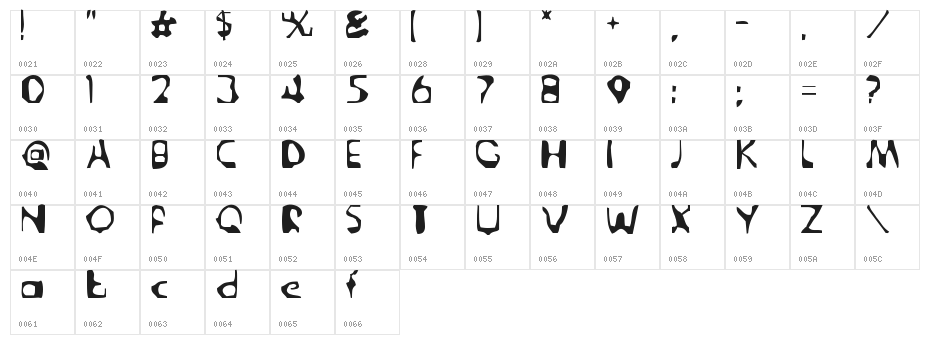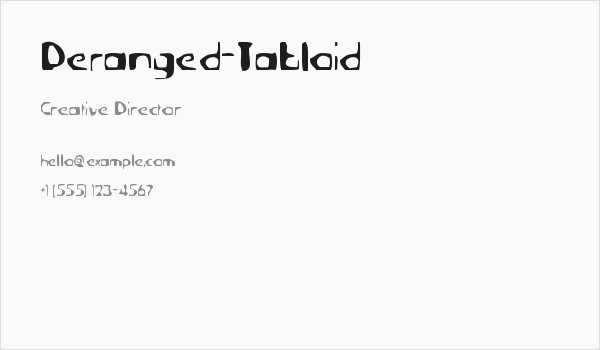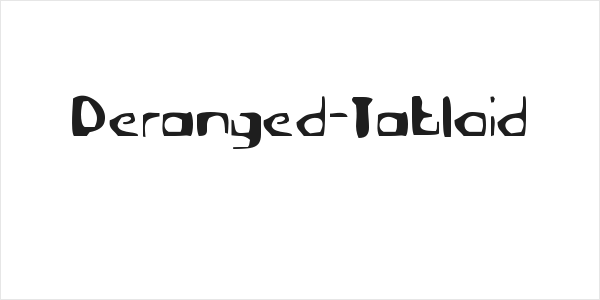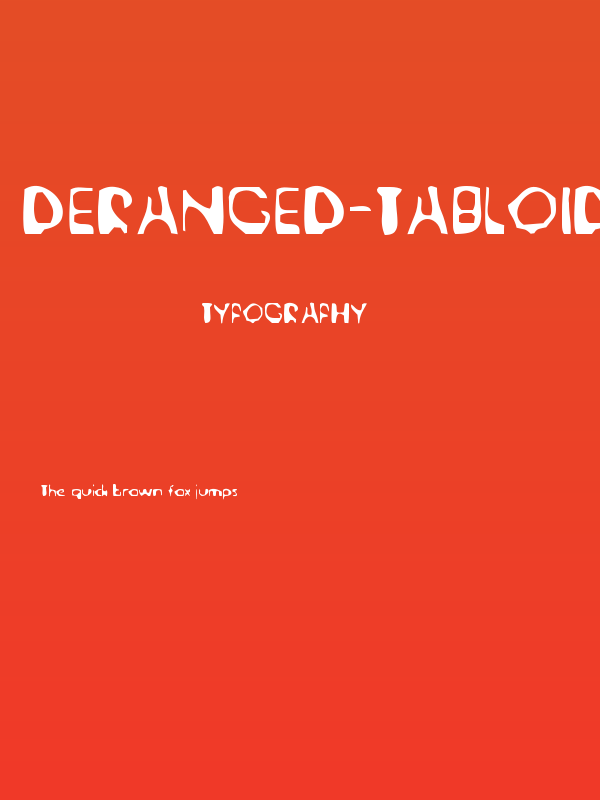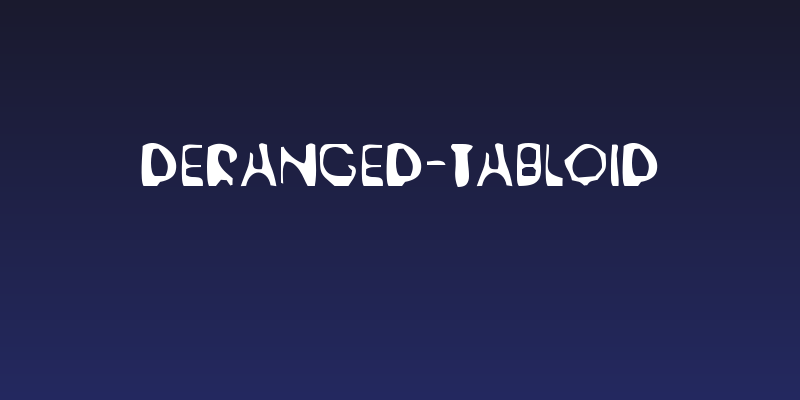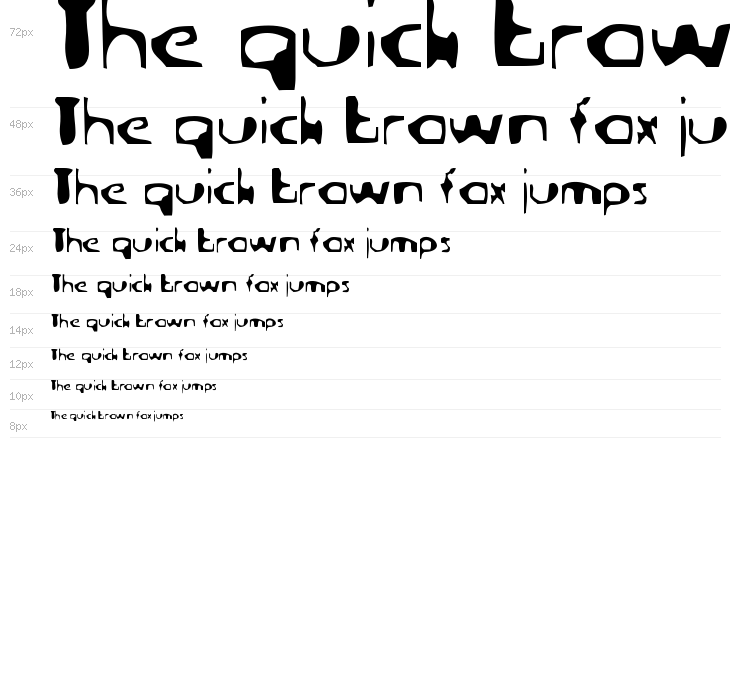
Deranged-Tabloid Font
Deranged-Tabloid Description
This font exhibits a highly irregular and distorted style, reminiscent of a chaotic or deranged aesthetic. The characters are unevenly shaped, with varying thicknesses and unexpected angles, creating a sense of disarray and unpredictability. The uppercase and lowercase letters maintain a consistent level of distortion, giving the font a cohesive yet wild appearance. Numbers and special characters follow the same erratic design, ensuring uniformity across all glyphs. This font's unique style makes it stand out, ideal for projects that require a bold, unconventional look.
| Proposed Projects | Ideal for horror-themed designs, edgy posters, album covers, or any project needing a bold, unconventional aesthetic. |